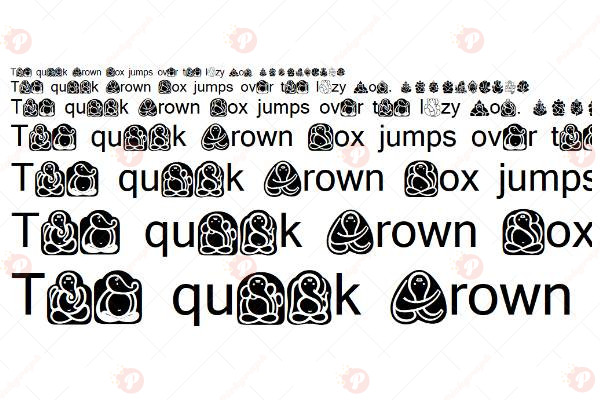
The Ganpati Bappa Font is a beautifully designed devotional typeface inspired by cultural and traditional aesthetics. Perfect for adding a spiritual and festive touch, this font is ideal for religious posters, invitations, banners, logos, packaging, social media posts, and cultural branding projects.
Its unique letterforms bring both artistic style and readability, making it a versatile choice for designers who want to highlight Indian tradition and devotion in their work.
Style: Devotional / Traditional / Decorative Typeface
Perfect for: Festival Posters, Invitations, Religious Banners, Logos, Cultural Branding & Social Media
Bring divine elegance and tradition to your designs with the Ganpati Bappa Font.